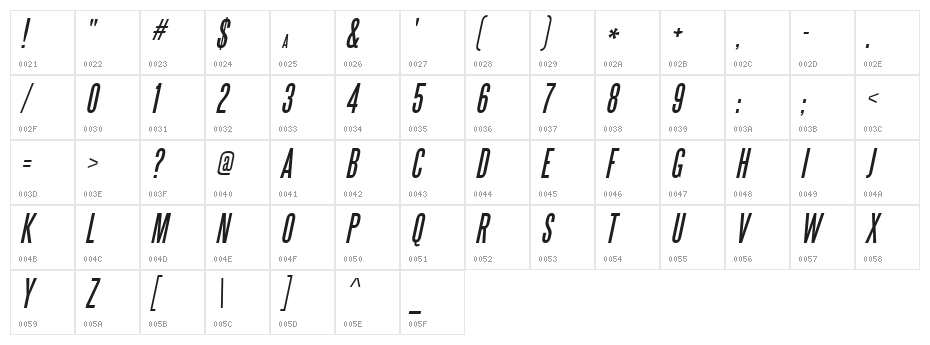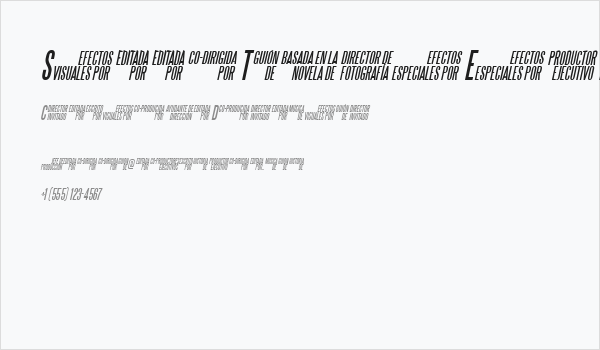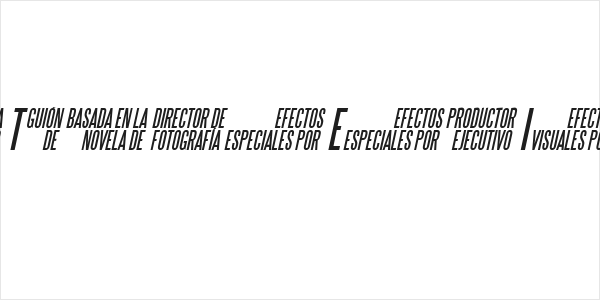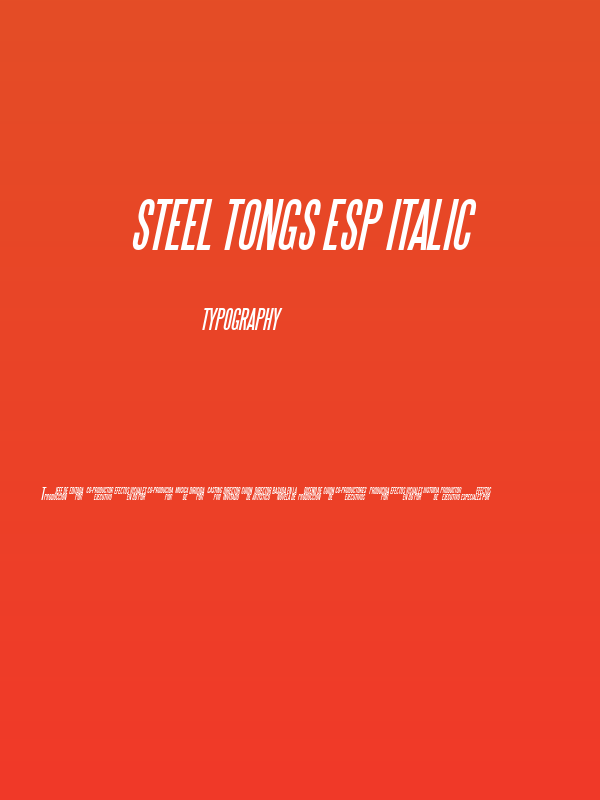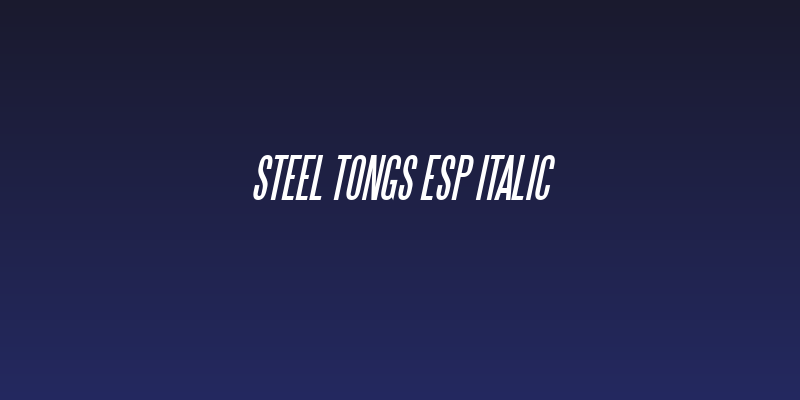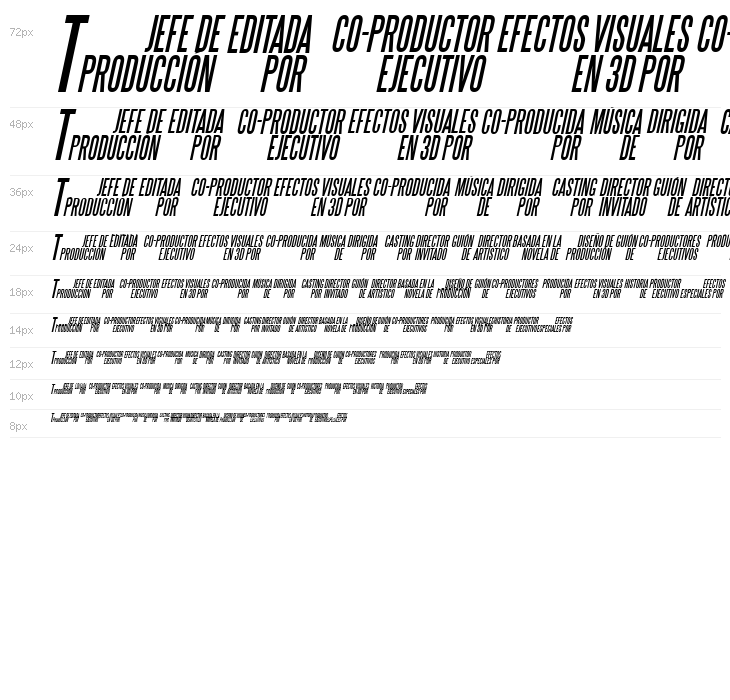
Steel Tongs Esp Italic Font
Steel Tongs Esp Italic Description
This font features a bold and italicized style with a strong, impactful presence. The letters are tall and narrow, giving a condensed appearance that emphasizes verticality. The strokes are consistent in weight, providing a uniform look across all characters. The italic slant adds a dynamic and energetic feel, making it suitable for attention-grabbing headlines and titles. The numerals and special characters maintain the same bold and italicized characteristics, ensuring a cohesive look throughout. The overall design is modern and sleek, with a touch of sophistication due to its italic nature.
| Proposed Projects | Ideal for movie posters, magazine covers, advertising campaigns, and branding materials that require a strong visual impact. |